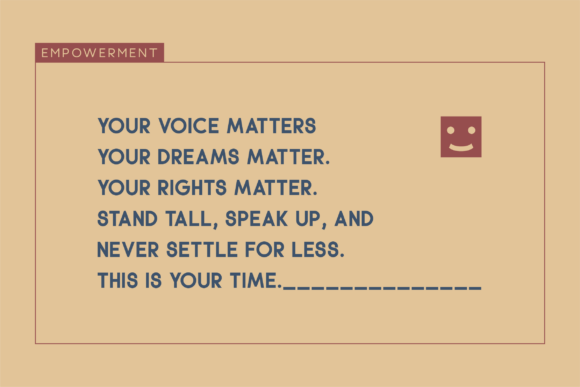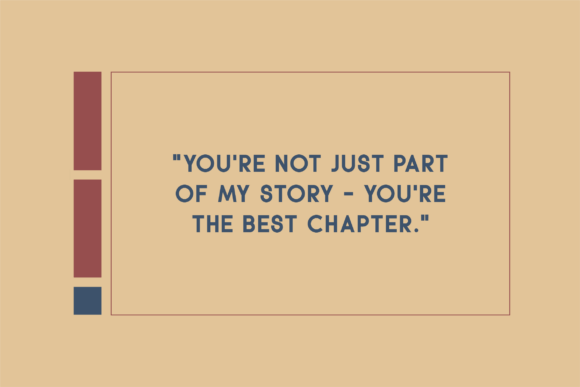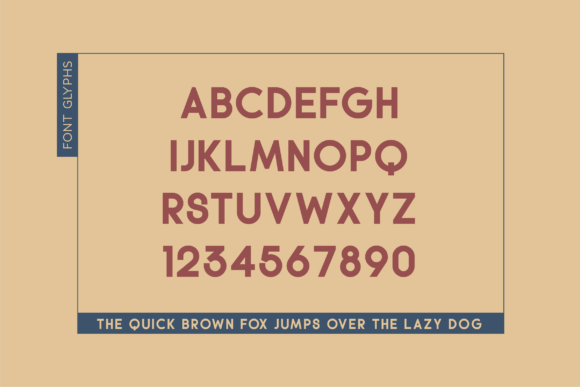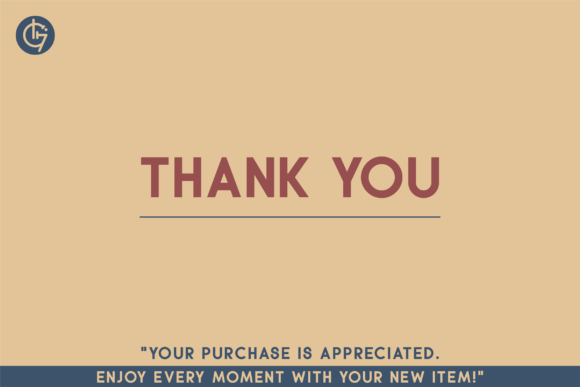
Introducing Brealuxe – A Modern Sans Serif Typeface
As a designer, I’ve had my fair share of frustrating moments – like when you’re working on a project, and you just can’t seem to find the right font. I recall one particularly challenging project where I was tasked with creating a bold, modern logo for a tech startup. The client wanted something that exuded professionalism and impact, but I was struggling to find a font that fit the bill. That’s when I stumbled upon Brealuxe, a bold, all-caps sans serif font that instantly caught my attention.
The Brealuxe Advantage
Brealuxe is a game-changer for designers looking for a modern, minimalist typeface that makes a statement. With its clean lines and sharp, crisp edges, this font exudes strength and authority. It’s perfect for projects that require a sense of professionalism and impact, whether you’re designing a logo, website, or print material.
Key Features of Brealuxe
- All-caps design for maximum impact
- Modern, minimalist style with a focus on readability
- Bold, clean lines for a confident and professional look
- Ideal for branding, logos, packaging, and digital design
- Perfect for both large-scale headlines and smaller text blocks
What I Love About Brealuxe ✨
- ✅ Versatility: Brealuxe is incredibly versatile, making it suitable for a wide range of design projects, from digital interfaces to high-end branding.
- ✅ Readability: The all-caps design and bold lines ensure that your message stands out, making it perfect for headlines, posters, and anywhere you need to grab attention.
- ✅ Modern aesthetic: Brealuxe has a distinctly modern feel that will elevate your designs and give them a professional edge.
- ⚠️ Limited flexibility: As an all-caps font, Brealuxe may not be the best choice for projects that require a mix of uppercase and lowercase letters.
- ⚠️ Glyph limitations: While Brealuxe has a range of glyphs and OpenType features, it may not have the same level of customization as some other fonts.
The Story Behind Brealuxe
Brealuxe was designed with the modern designer in mind. The font’s creator wanted to create a typeface that was both bold and elegant, with a focus on readability and versatility. The result is a font that’s perfect for a wide range of design projects, from branding and logos to digital interfaces and print materials.
| Font Name | Brealuxe Font |
| Author | Goliatte Studio |
| What is Brealuxe? | Brealuxe is a bold, all-caps sans serif font designed for modern designers. |
| What is Brealuxe used for? | Brealuxe is perfect for branding, logos, packaging, digital design, and anywhere you need a bold, professional font. |
| Is Brealuxe available in different styles? | Currently, Brealuxe is available in a single style, but it can be used in a variety of contexts to create different effects. |